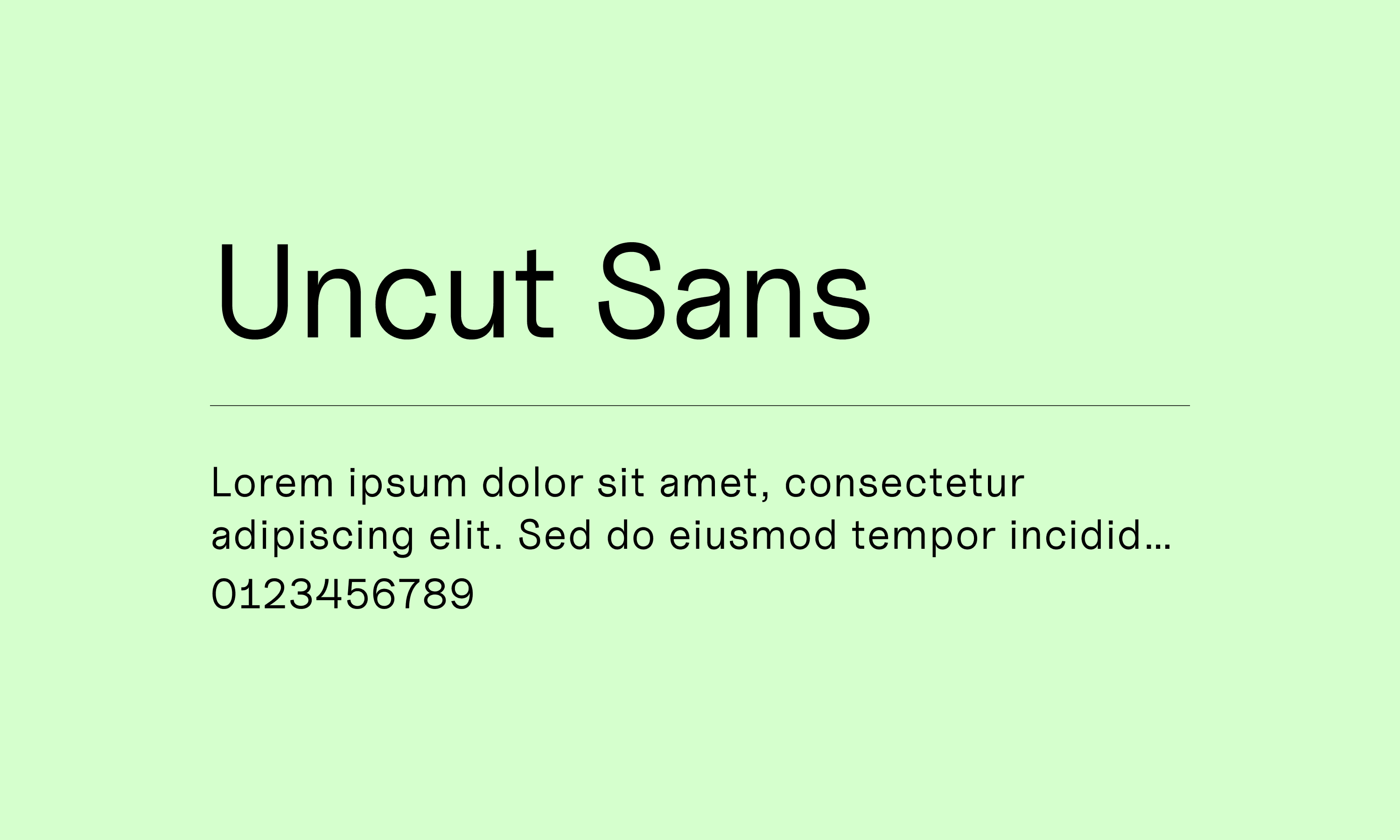
Uncut Sans
Uncut Sans is a modern sans-serif font inspired by classic Gothic typefaces. It features a clean and geometric design style, incorporating modern elements that make it highly adaptable in the digital age.